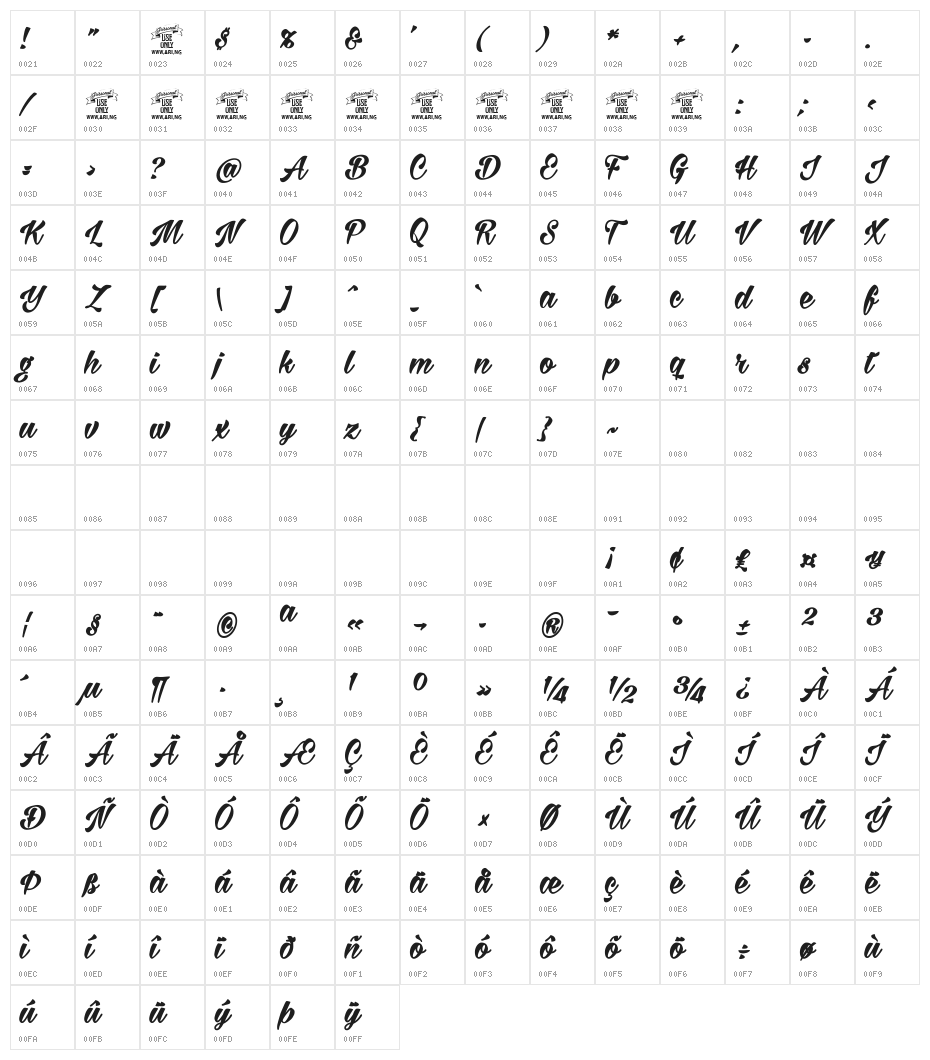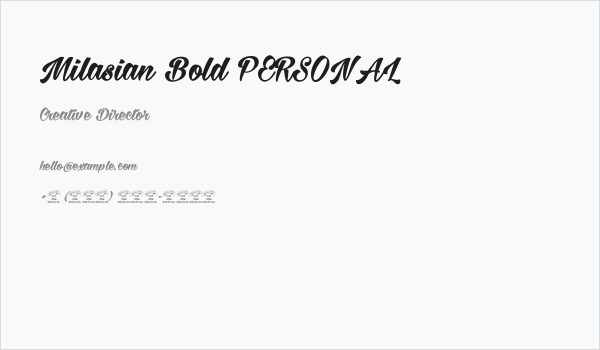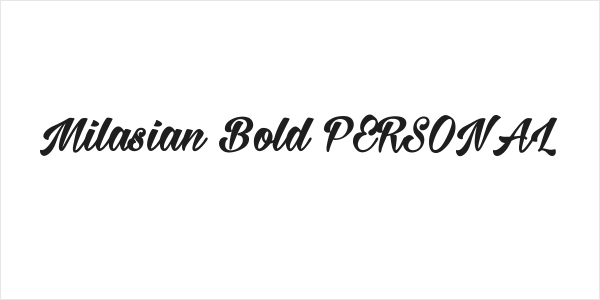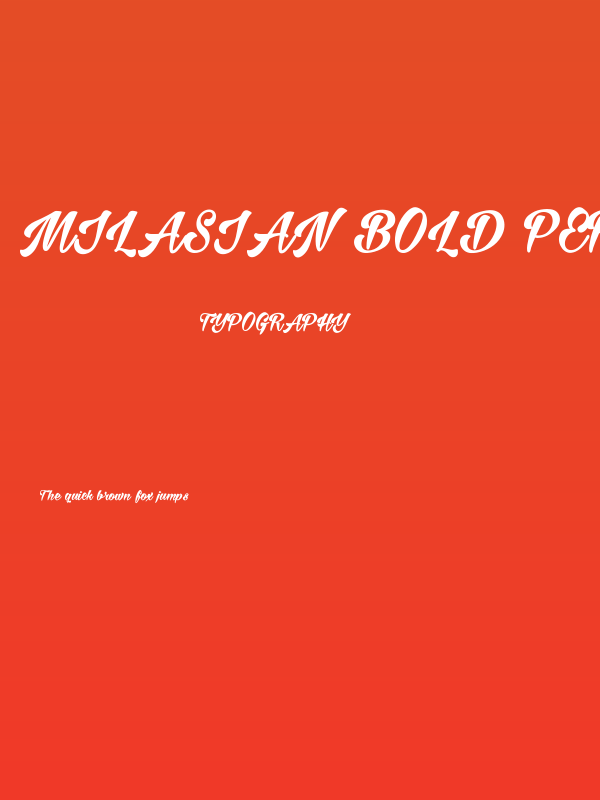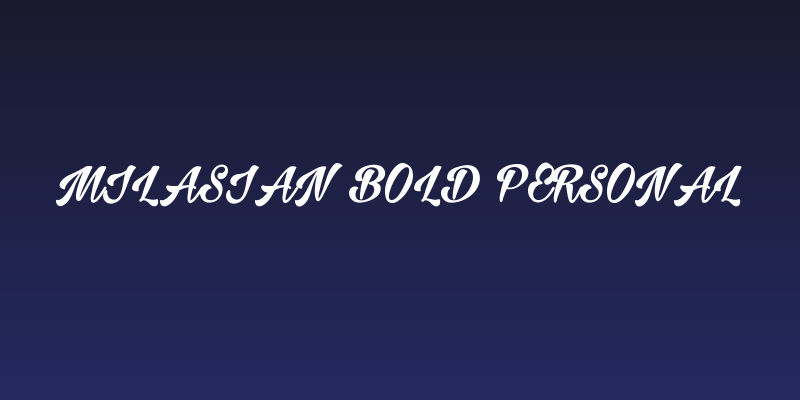
Milasian Bold PERSONAL Font
Milasian Bold PERSONAL Description
This font features a bold and flowing script style, characterized by its smooth, cursive letterforms that convey a sense of elegance and fluidity. The uppercase letters are slightly more ornate, with sweeping curves and flourishes, while the lowercase letters maintain a consistent, rounded appearance. The numbers and special characters are designed to match the overall aesthetic, providing a cohesive look across all elements. This font's bold weight and high contrast between thick and thin strokes make it highly legible, even at smaller sizes. The character spacing is relatively tight, enhancing the connected, handwritten feel of the text.